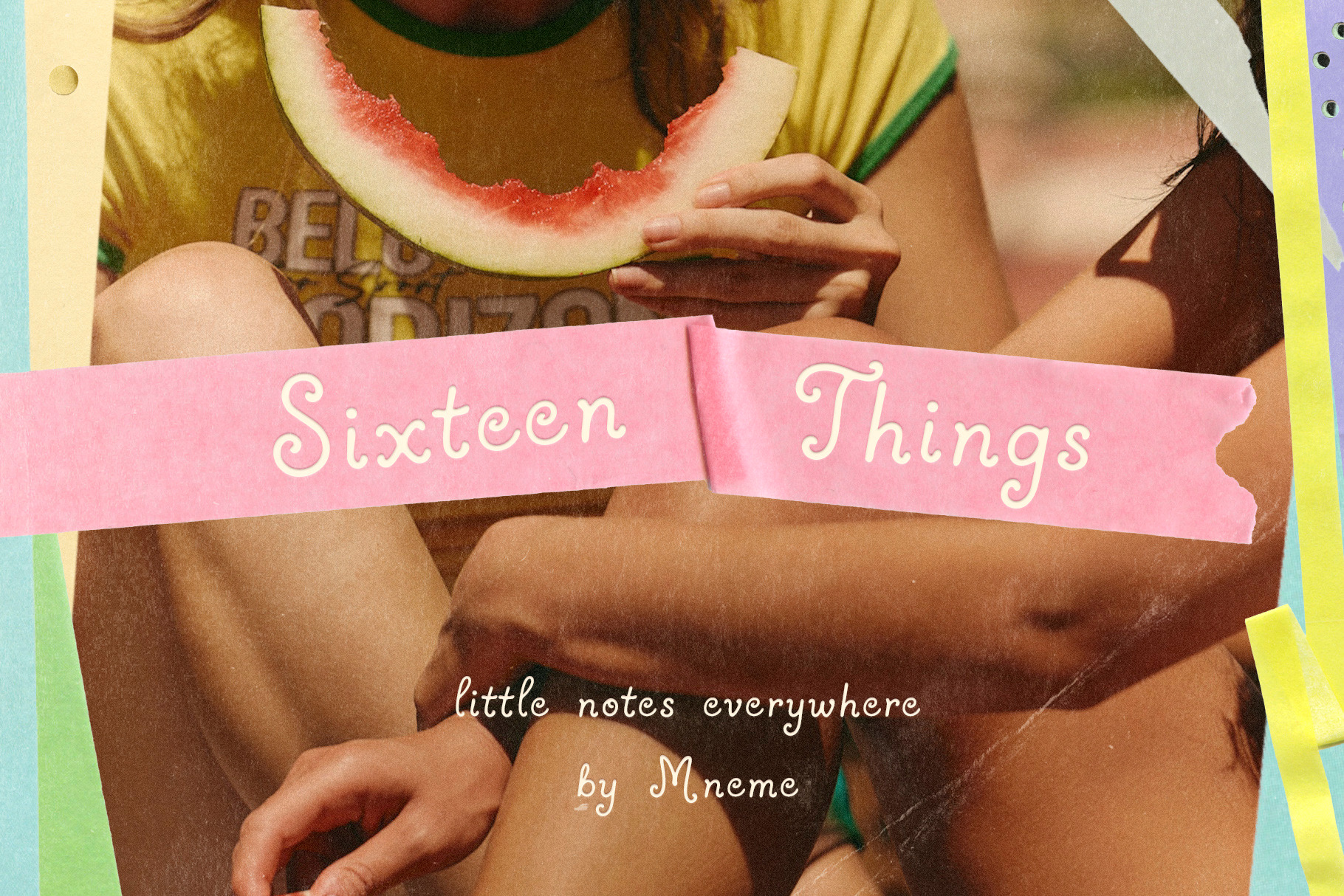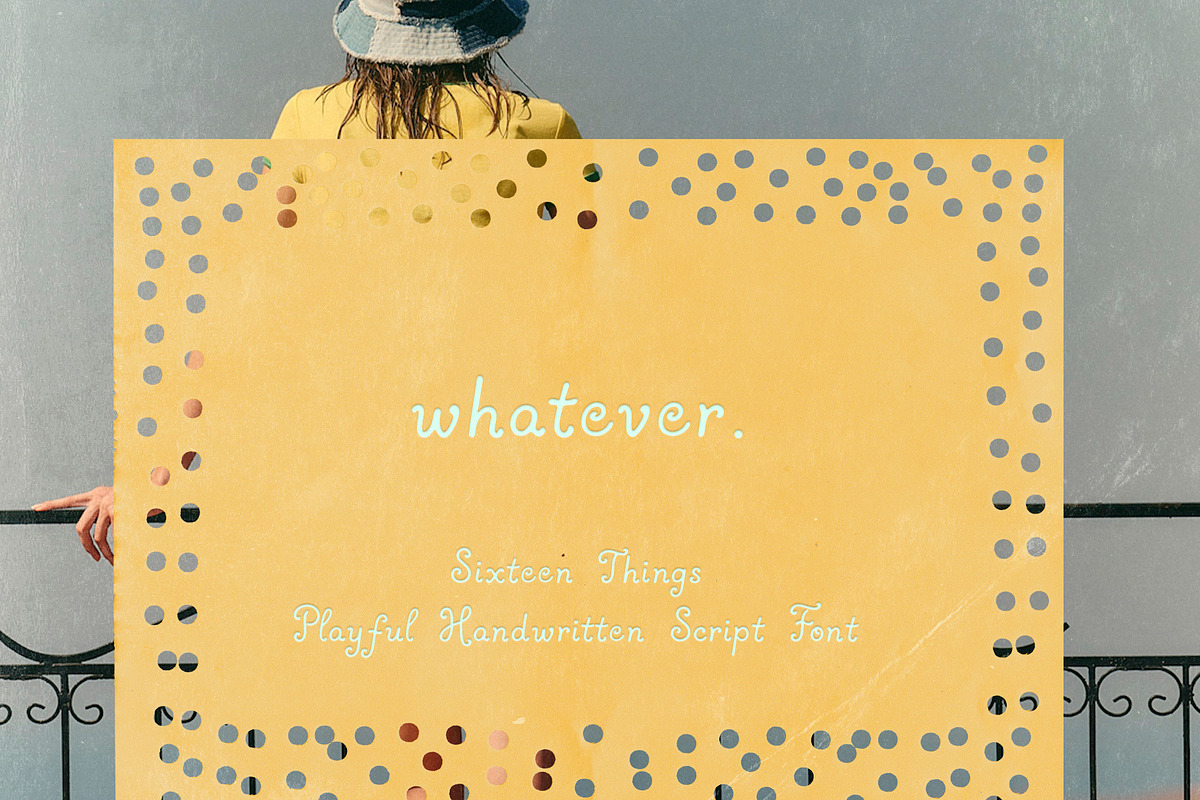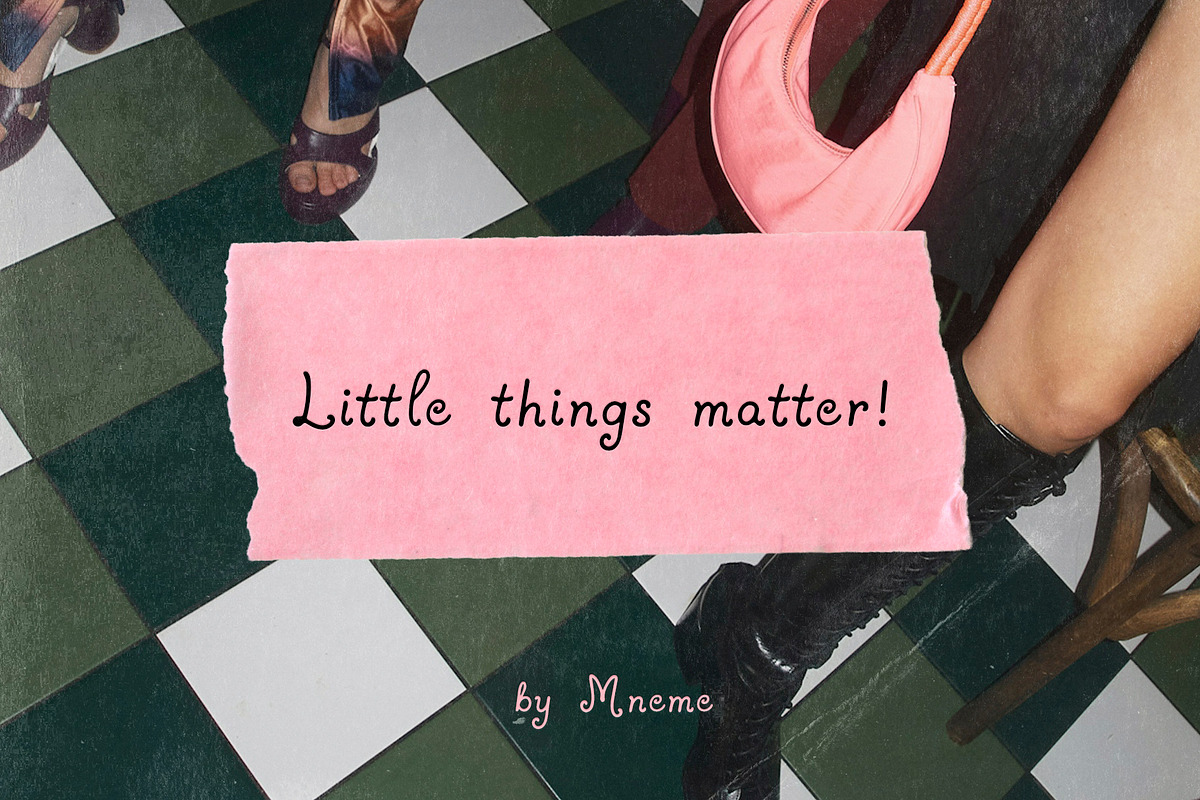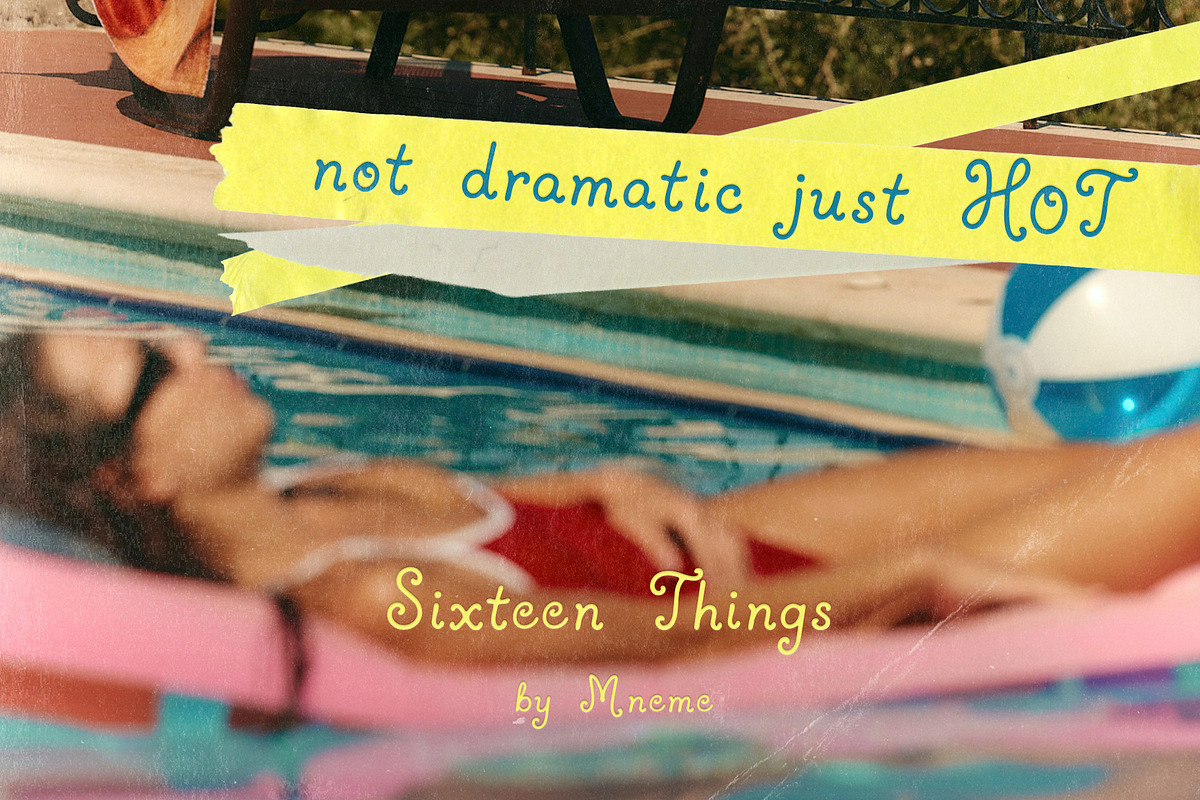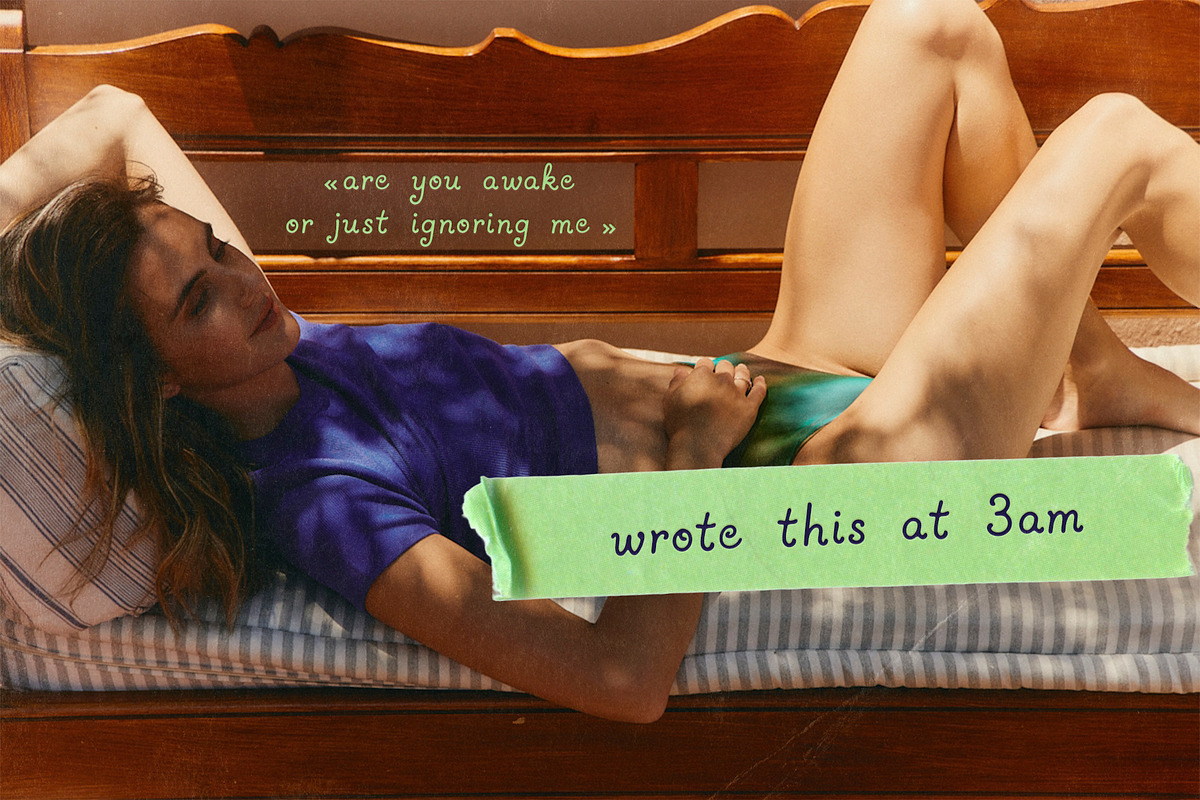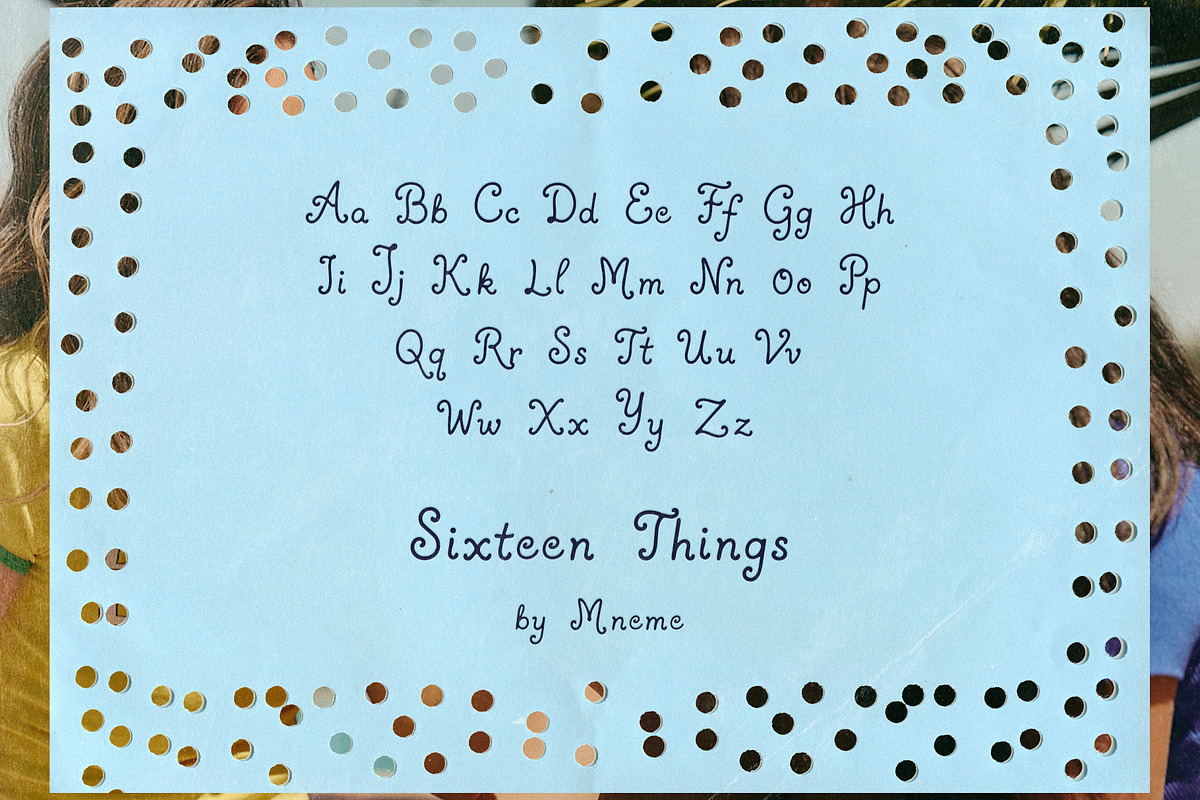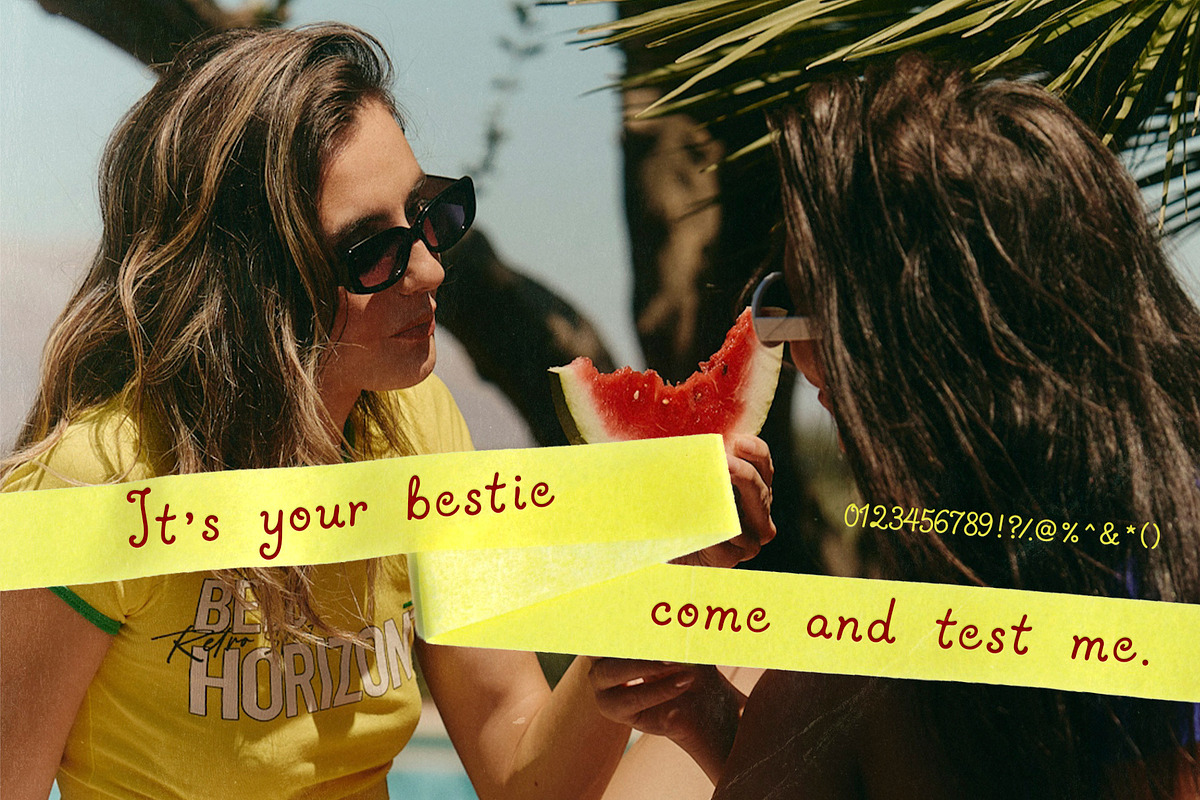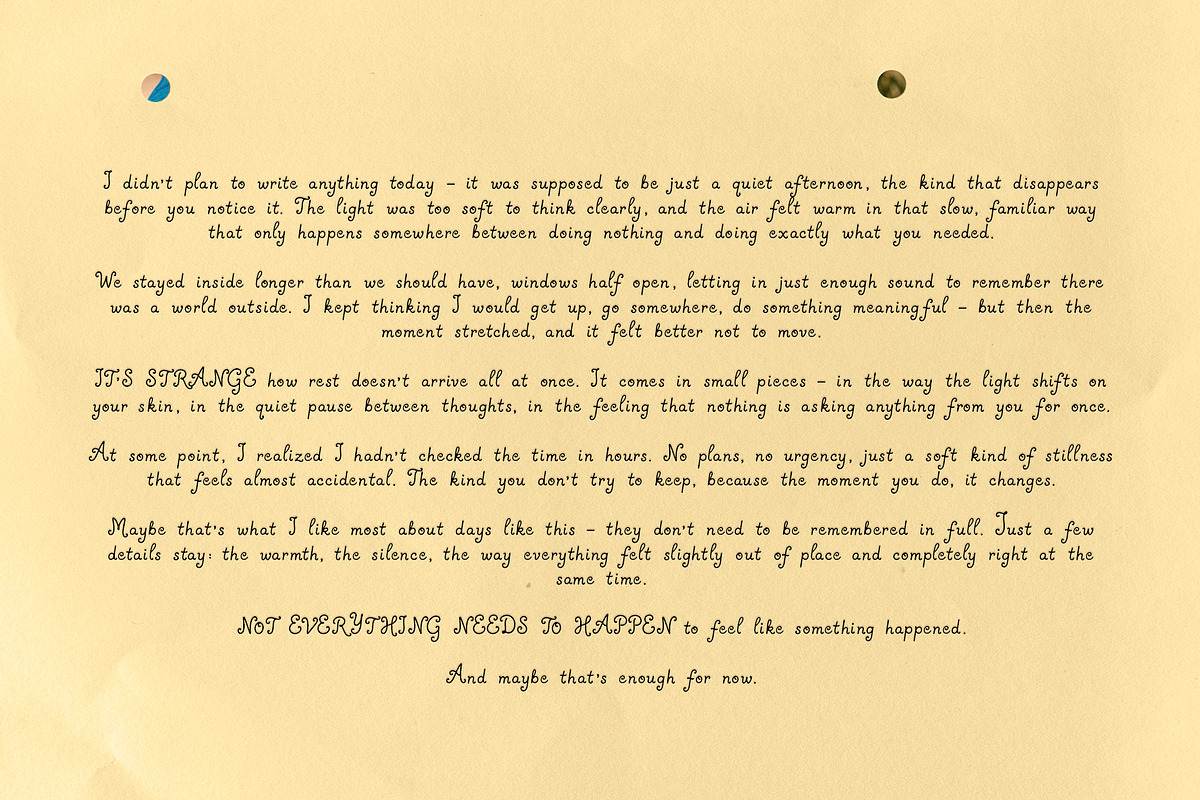
Sixteen Things: Handwritten Font
Sixteen Things is a playful handwritten script with a slightly messy, spontaneous rhythm like notes written too fast, ideas caught mid-thought, or something you didn’t plan to keep but did anyway.
The letters aren’t trying too hard. They lean, they shift, they keep a bit of chaos and that’s exactly where the charm lives.